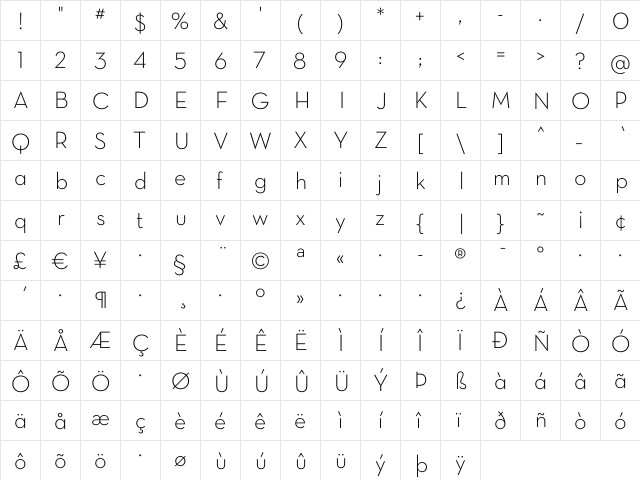
Neutra Text Light Alt Regular Font Preview
Neutra Text Light Alt Regular
Neutra Text Light Alt Regular Font Details
| Designer | Christian Schwartz |
Design Context for Neutra Text Light Alt Typeface
Neutra Text Light Alt takes a measured approach to typography — its balanced proportions and neutral character make it a reliable workhorse for both digital and print work. Its slender proportions lend an understated elegance to any composition.